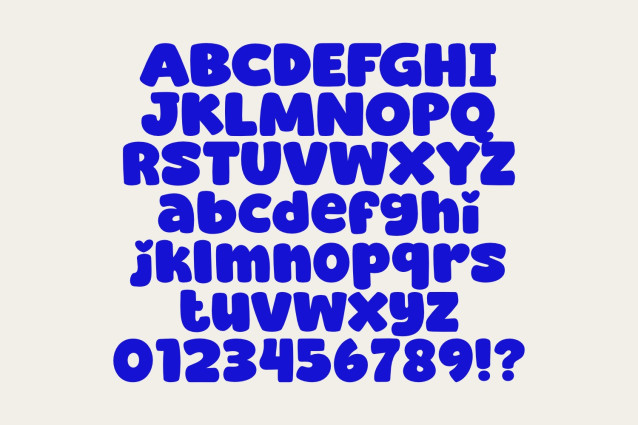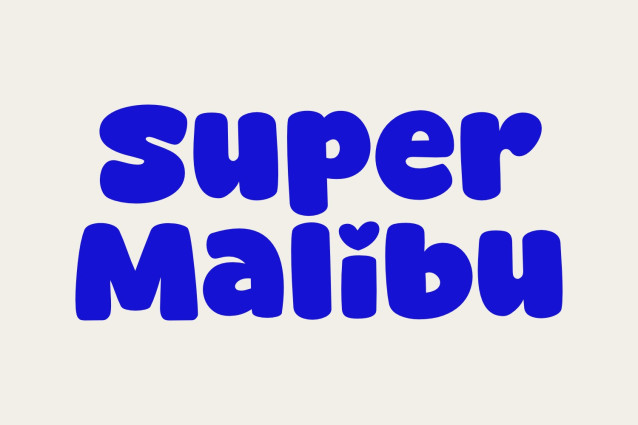
Super Malibu Font is a chunky, comic, and cartoon display font. With its neat and joyful personality, this font will enhance any project you wish to create!